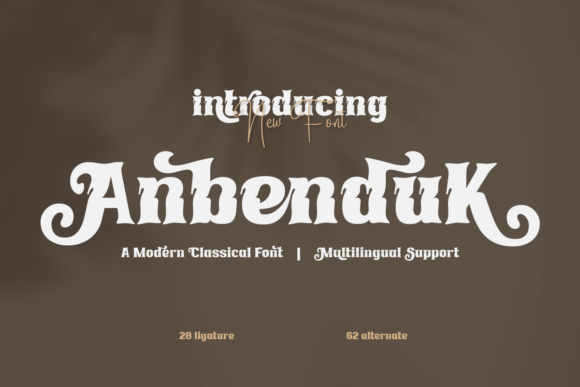
The Perfect Blend of Elegance and Modernity: Anbenduk Font
As a designer, there’s nothing quite like the thrill of bringing a project to life. It’s the moment when all the elements come together, and your vision takes shape. But, have you ever struggled to find the perfect font to elevate your work? You’re not alone. That’s why we’re excited to introduce you to the Anbenduk Font, a stunning serif typeface that embodies the essence of classic modernism.
With its unique blend of elegance and sophistication, the Anbenduk Font is ideal for projects that demand a touch of refinement. Whether you’re working on a high-end brochure, a luxury brand identity, or a multilingual publication, this font is sure to make your writing stand out. Its wide language support and creative features like ligatures and alternates make it a valuable asset for designers seeking to push the boundaries of their craft.
Anbenduk Font Key Features
- Font Family: Anbenduk is a unique, hand-drawn font family with a range of styles and weights.
- Character Set: Includes a wide range of characters, including Latin, Cyrillic, and Greek alphabets, as well as punctuation and symbols.
- Unique Characteristics: Anbenduk’s distinctive, hand-drawn style and varied line widths give it a unique, artistic feel that sets it apart from other fonts.
Anbenduk Font Review
Anbenduk Font is a modern and stylish font that can add a unique touch to any design project. Here are some things that work well about this font:
- ✨ Unique and playful letterforms that can add a fun and creative feel to your design.
- ✨ High-quality font files that ensure crisp and clear typography, even at larger font sizes.
- ✨ Good support for a wide range of languages, making it a great choice for international design projects.
- ⚠️ Limited font weights and styles, which may limit its versatility in certain design situations.
- ⚠️ Some characters may not be as well-designed as others, which can affect the overall aesthetic of your design.
- ⚠️ No clear guidelines for optimal usage, which can make it difficult to get the most out of this font.
Overall, Anbenduk Font is a solid choice for designers looking for a modern and playful font. While it has some limitations, its unique letterforms and high-quality font files make it a great addition to any design project. With some careful consideration and planning, you can get the most out of this font and create stunning designs.
Experiment with different font sizes, colors, and styles to create unique and visually appealing designs.
Use Anbenduk font in conjunction with other fonts to create a harmonious and balanced typography.
Anbenduk font is ideal for use in creative projects, such as:
Typography-based art
Logo designs
Infographics
Book covers